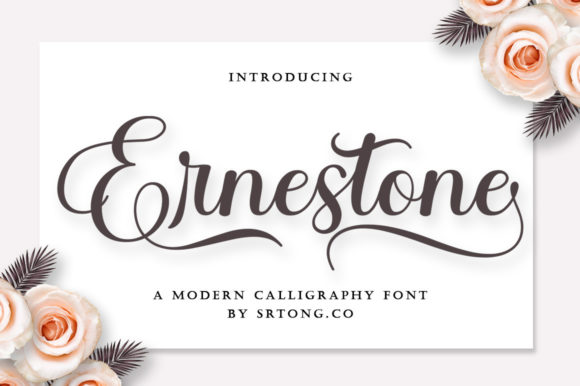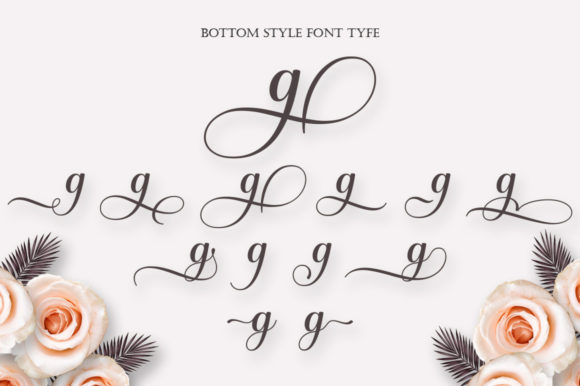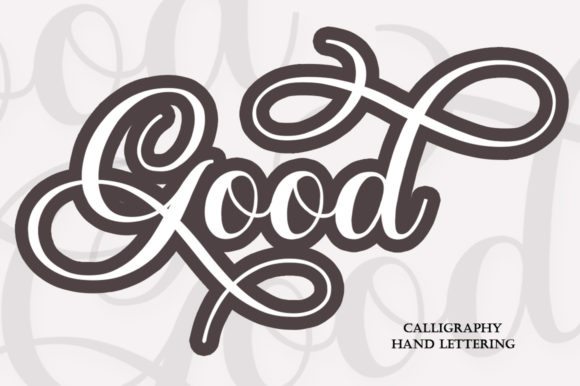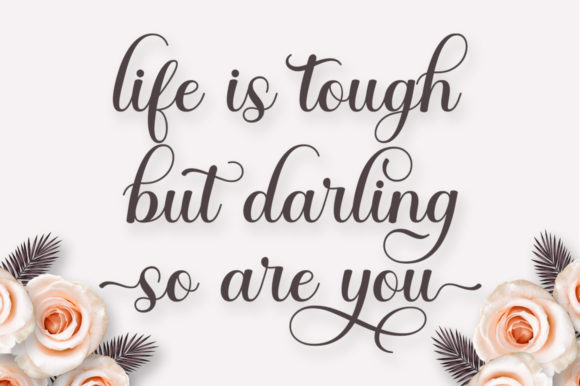
Ernestone Script Font
About Ernestone Script Font
Ernestone Script is an elegant script font with a contemporary atmosphere and impeccable form, inspired by timeless classic calligraphy. This font is PUA encoded which means you can access all glyphs and swashes with ease!